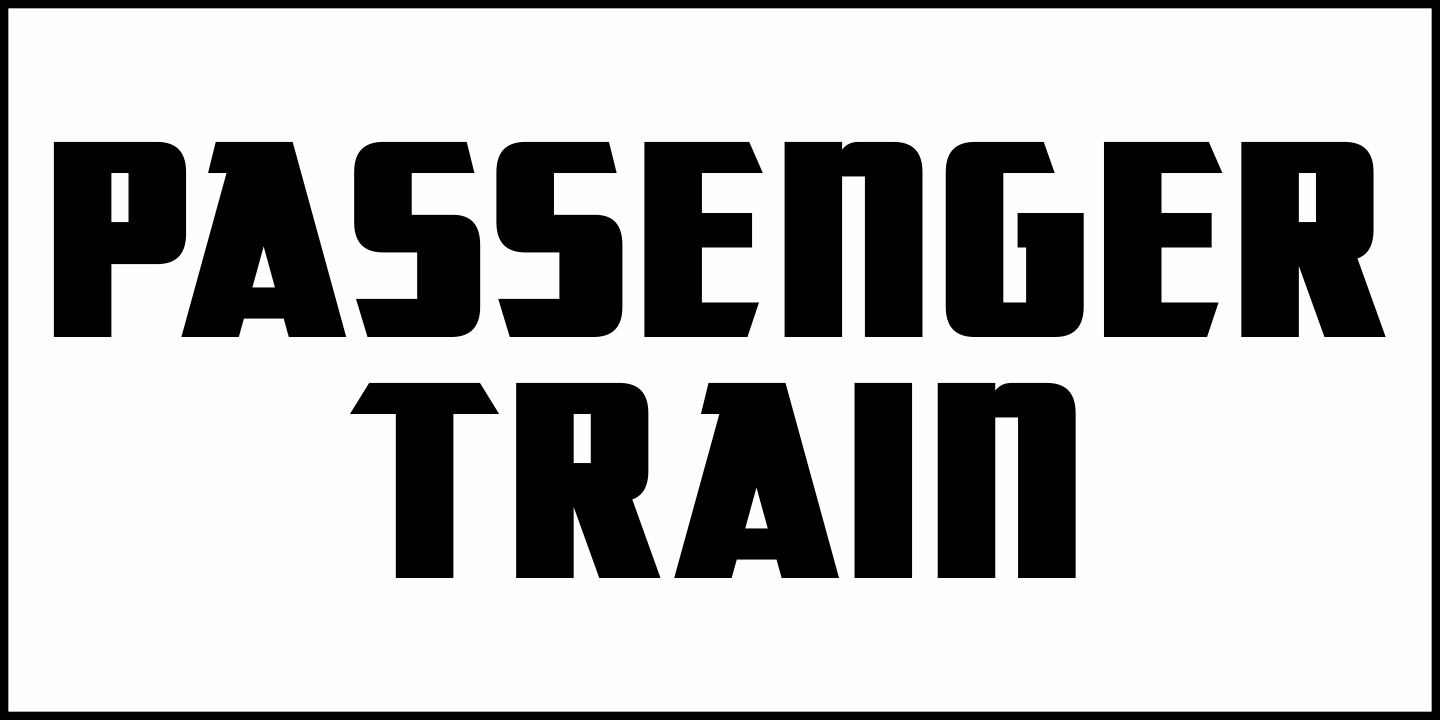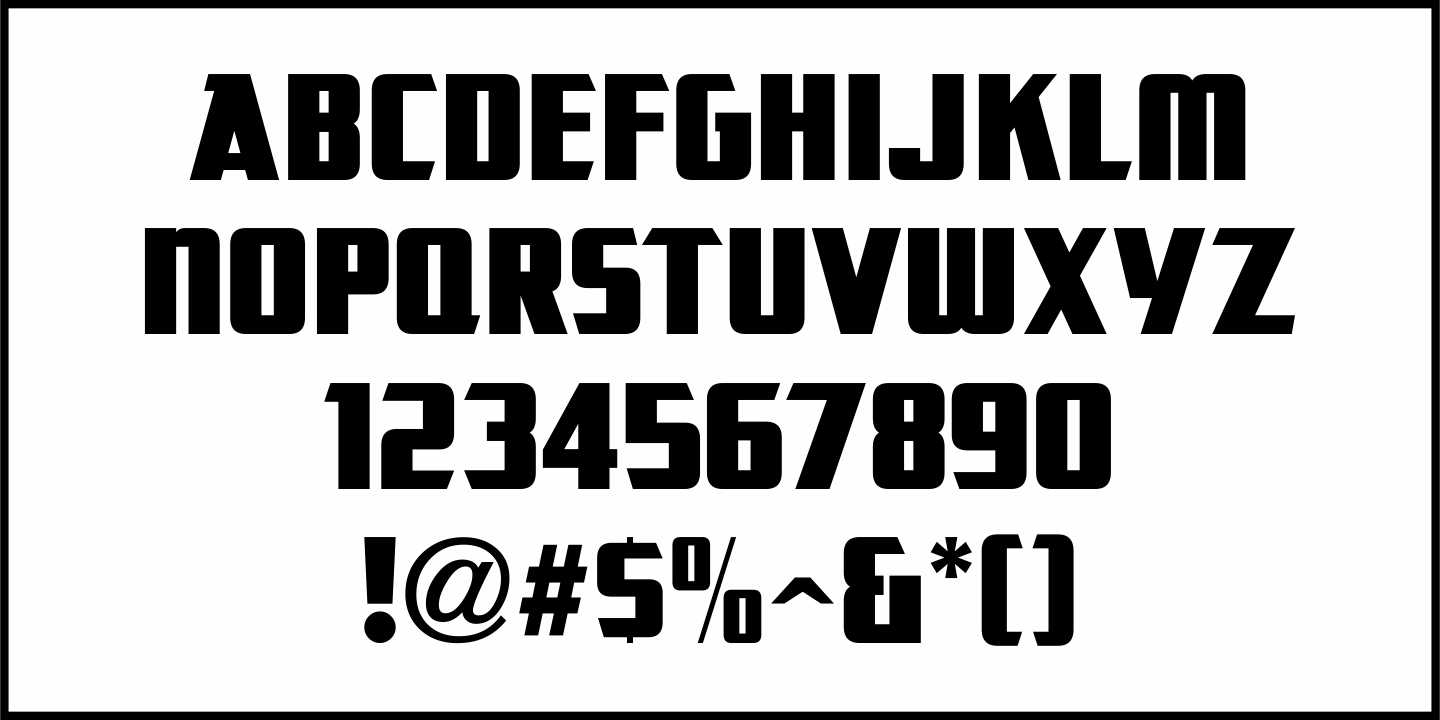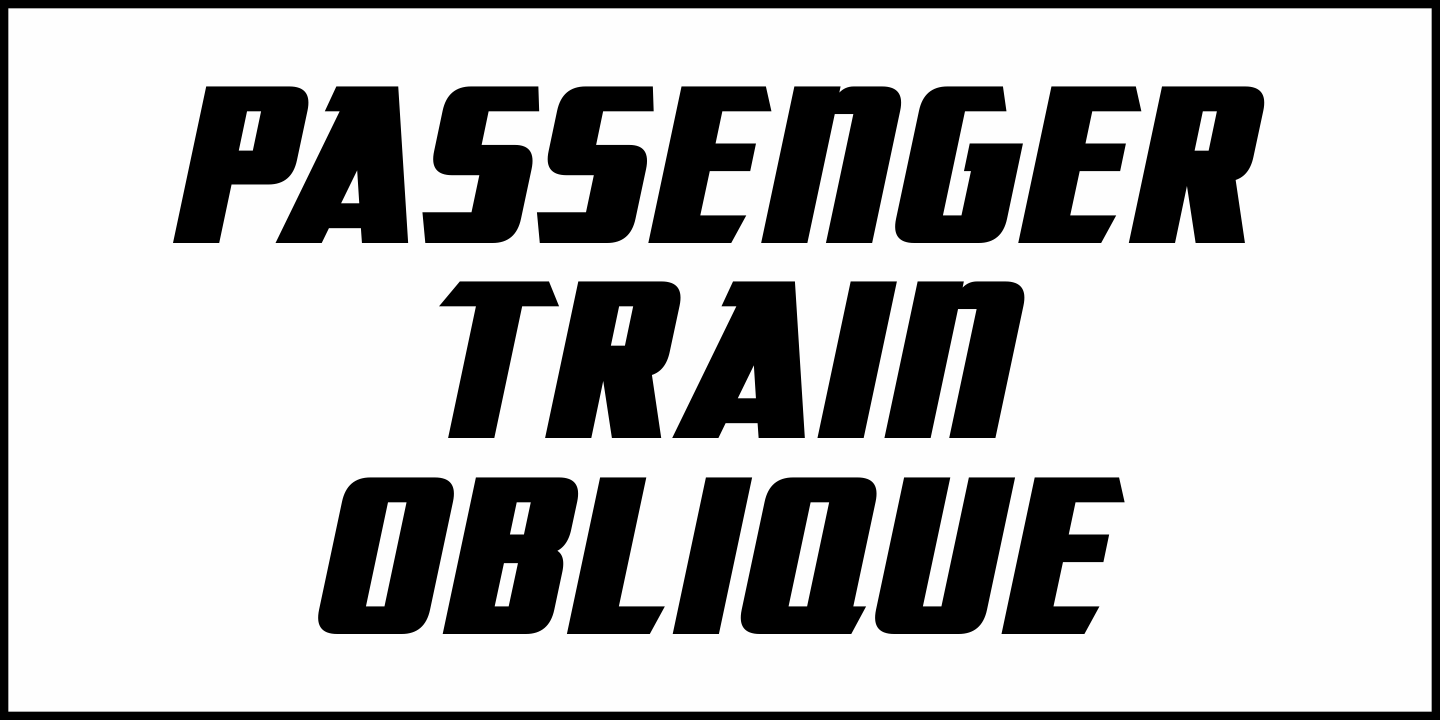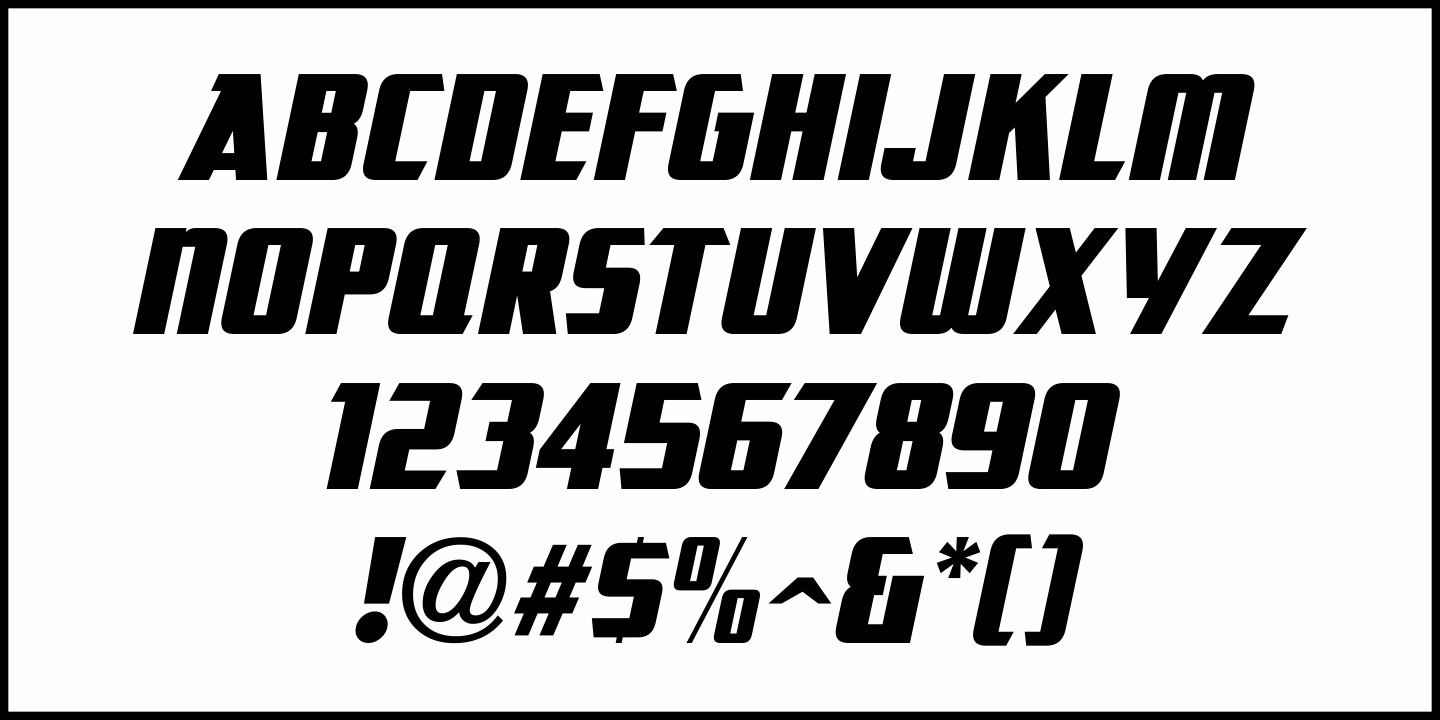
Passenger Train
A 1940s travel poster for the Florida East Coast Railway (which then carried passengers but is now a freight line) had the railroad’s name hand lettered in a bold Art Deco sans.
This inspired Passenger Train JNL, which is available in both regular and oblique versions.
Passenger Train JNL Regular by Jeff Levine Fonts